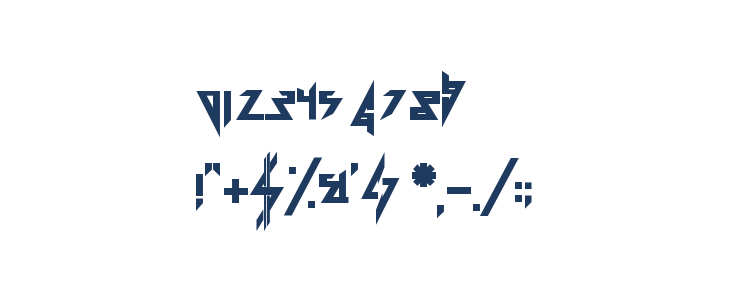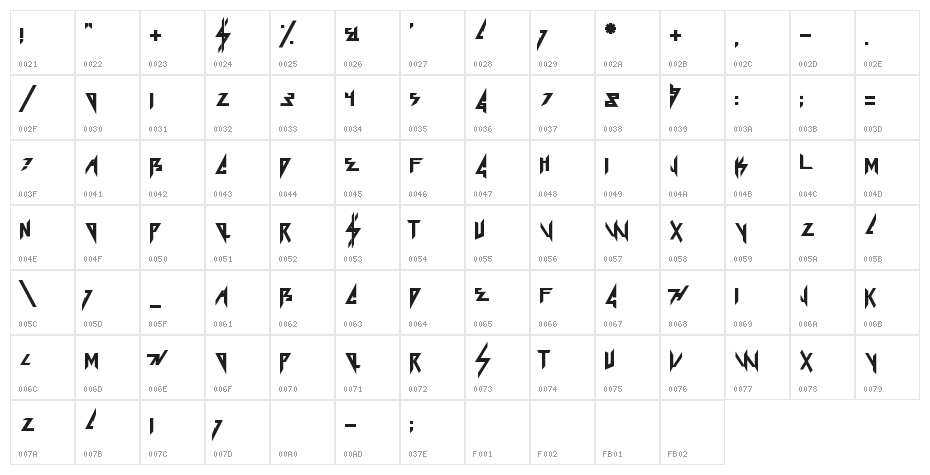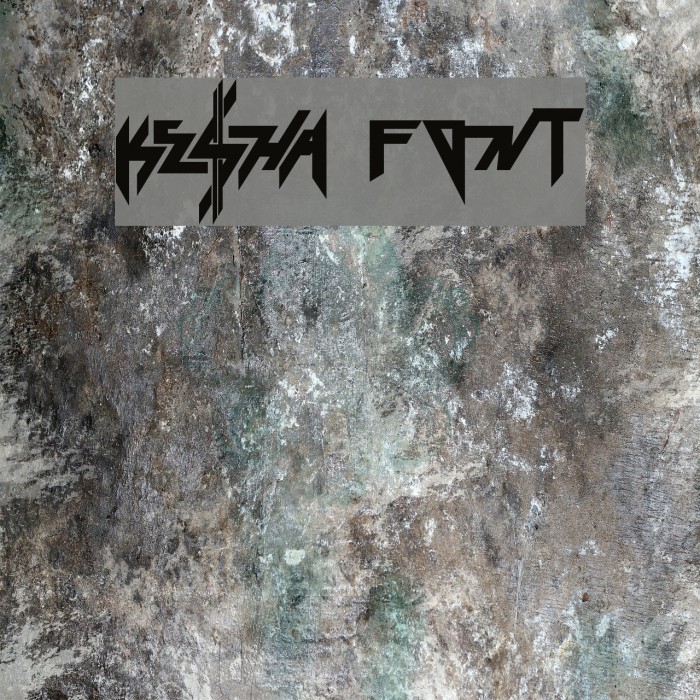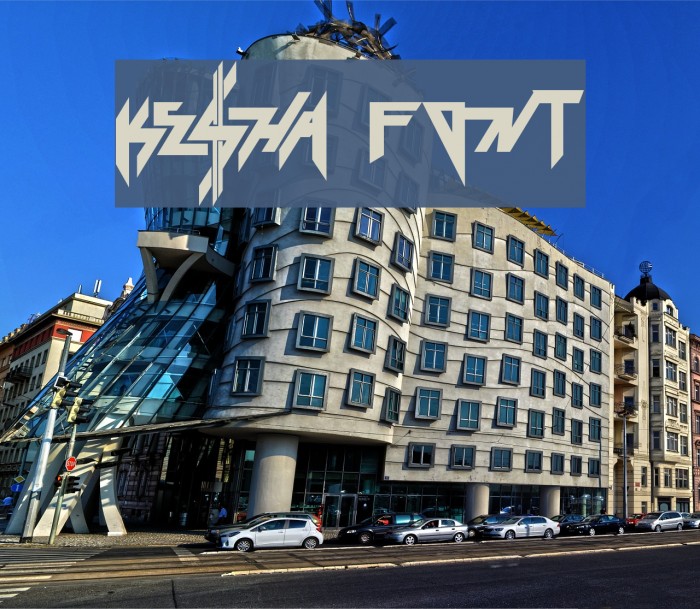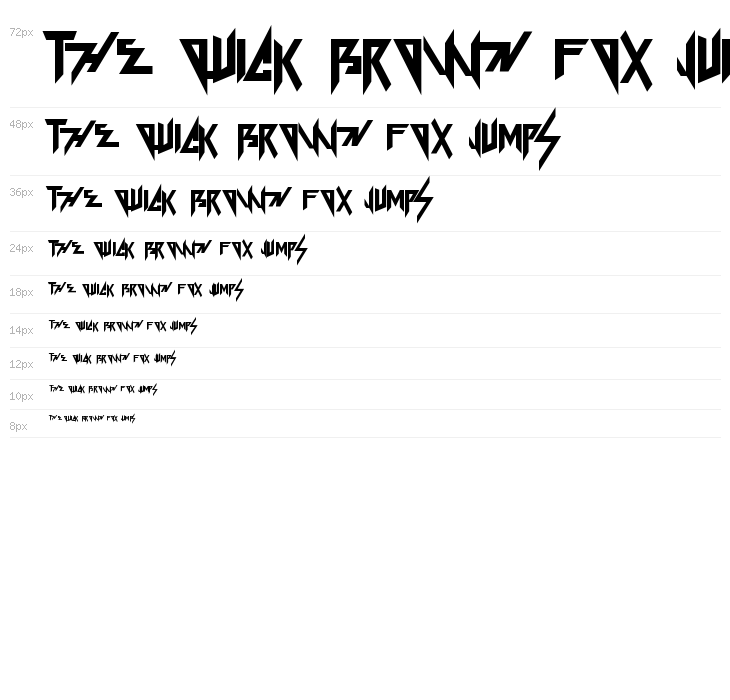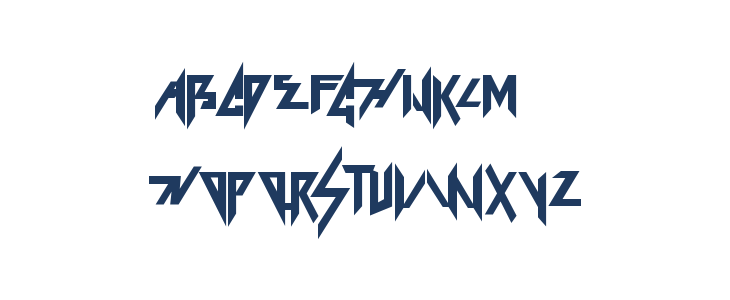
Ke$ha Font
Ke$ha Description
This font features a bold and angular design with sharp, geometric edges that give it a futuristic and edgy appearance. The characters are constructed with a series of straight lines and pointed angles, creating a sense of movement and energy. The uppercase and lowercase letters maintain a consistent style, with the lowercase being slightly smaller but equally dynamic. Numbers and special characters follow the same angular theme, ensuring a cohesive look across all glyphs. The font's unique style makes it stand out, making it suitable for projects that require a modern and striking visual impact.
| Overall Style | Futuristic, Edgy |
| Proposed Projects | Ideal for sci-fi themed projects, video game titles, posters, and branding that requires a modern and bold aesthetic. |